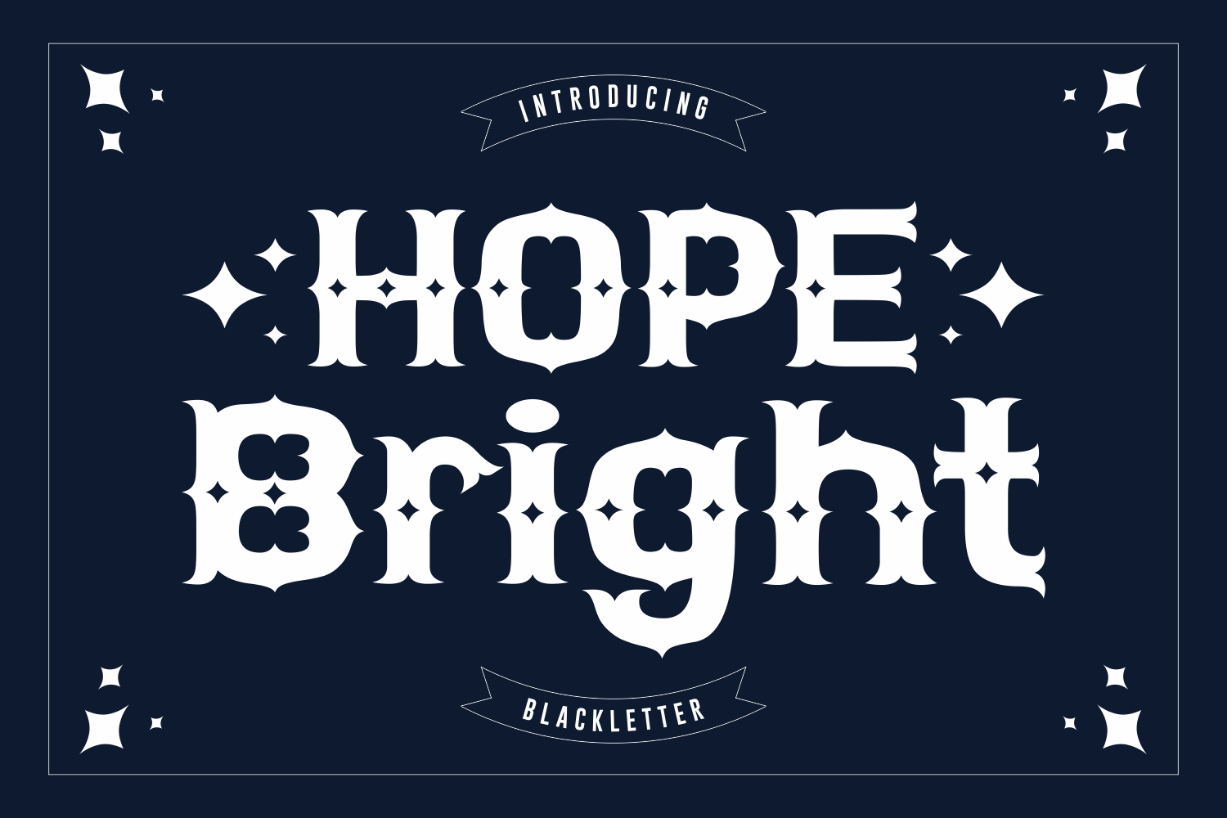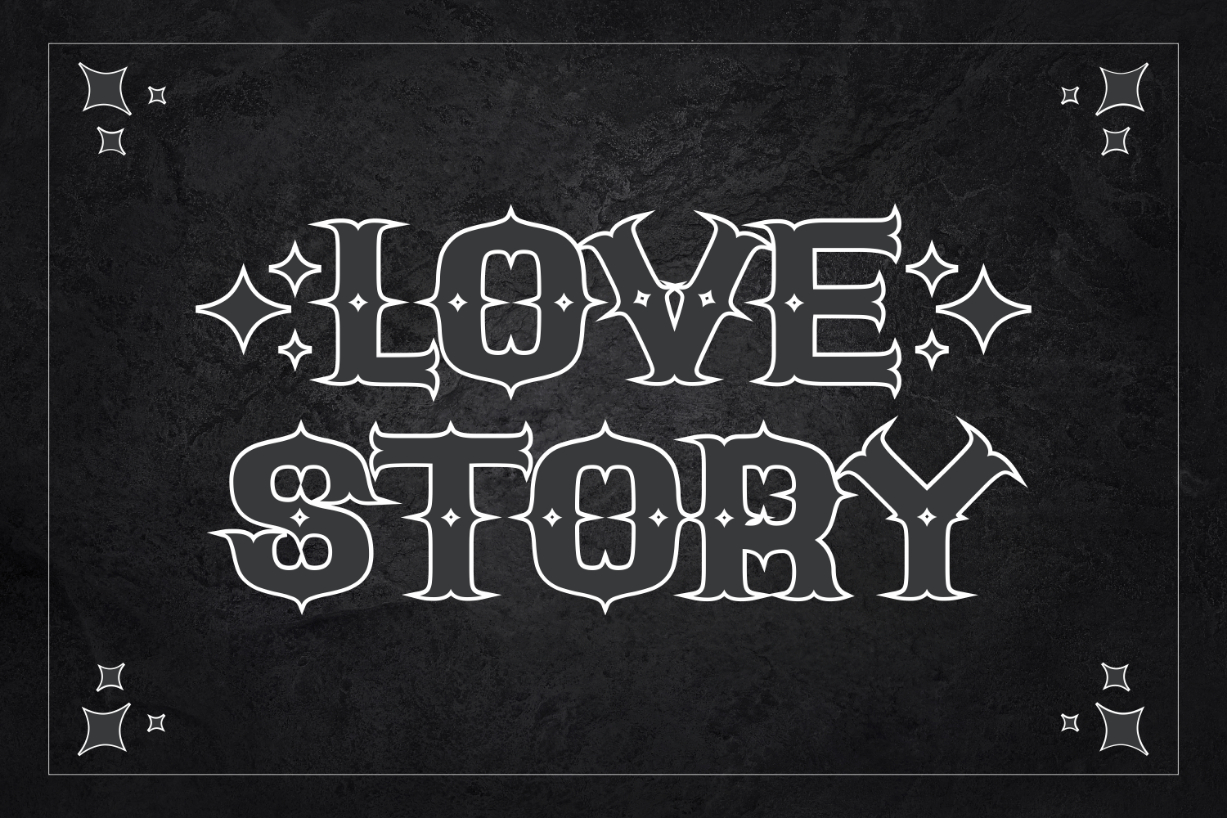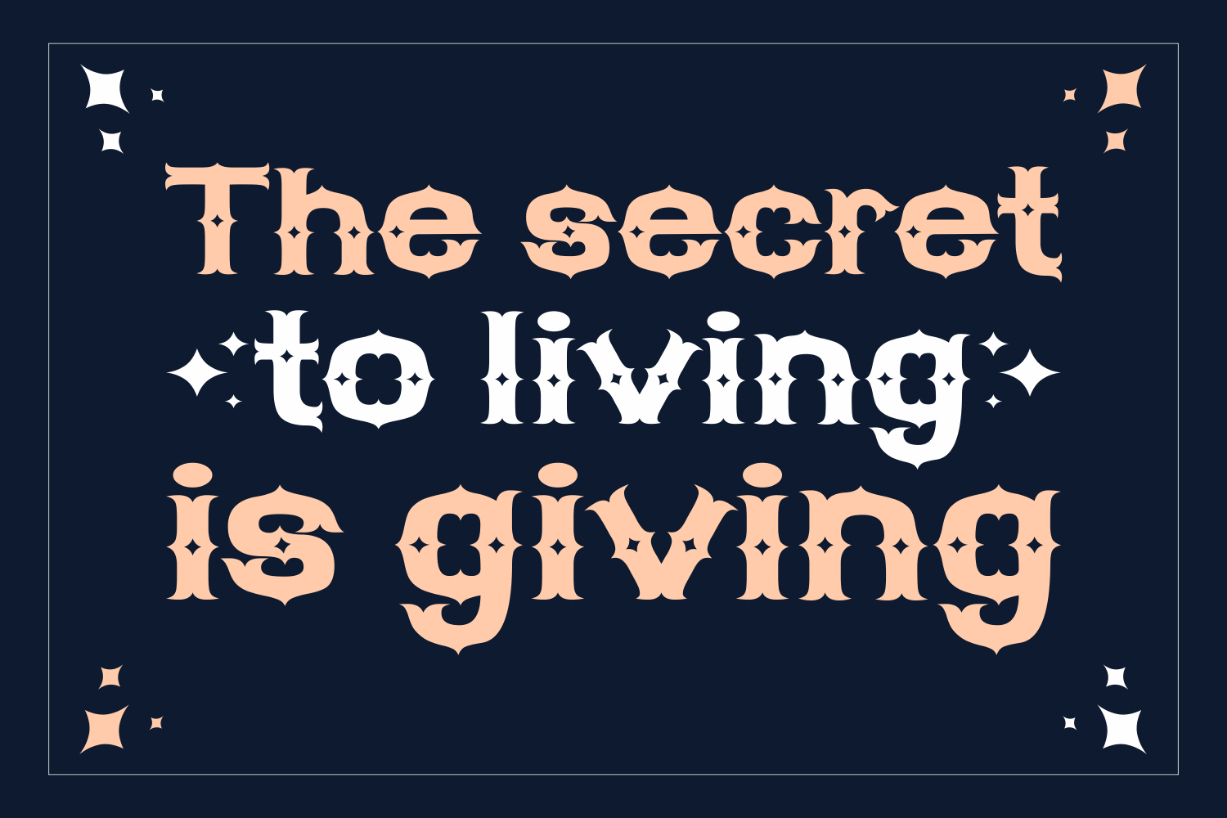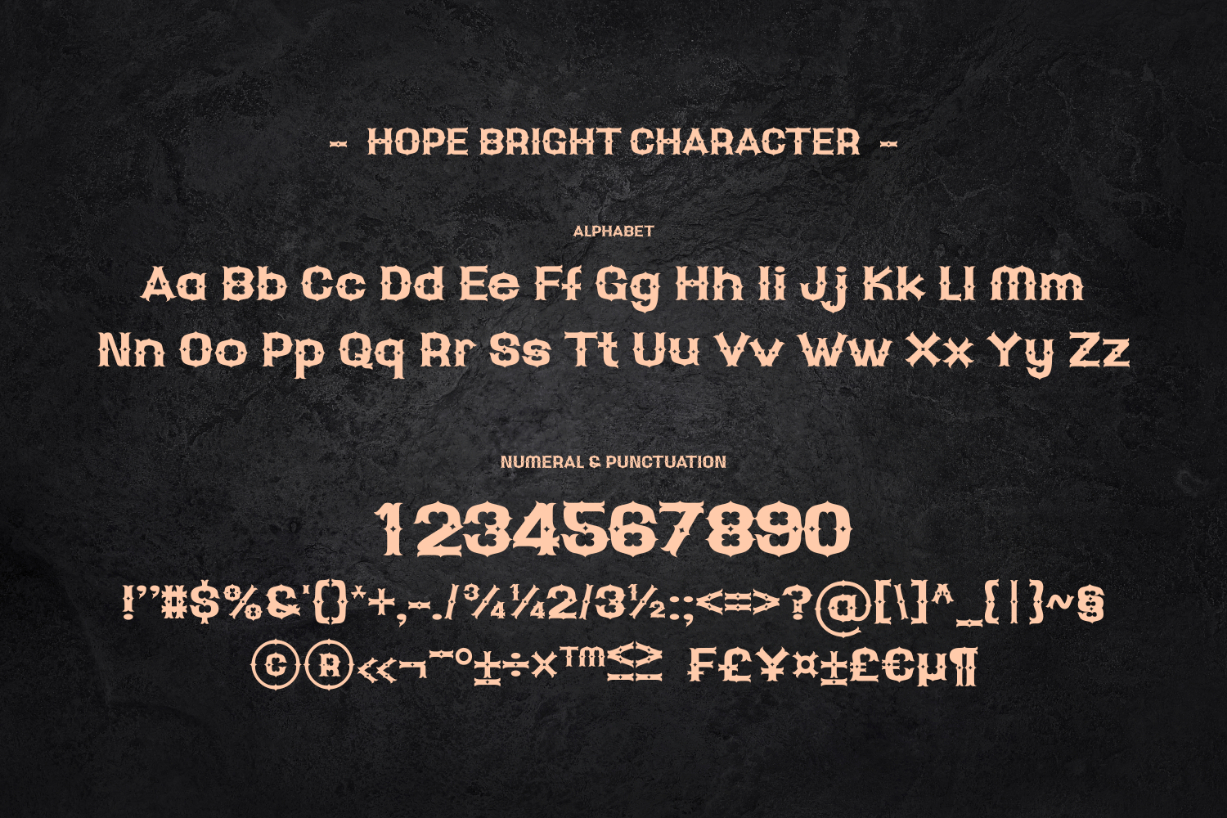
About Hope Bright Font
Hope Bright is a bold, thick lettered and vintage looking blackletter font. Expertly designed to make your creation look out of this world, this font will look gorgeous on a variety of ideas.